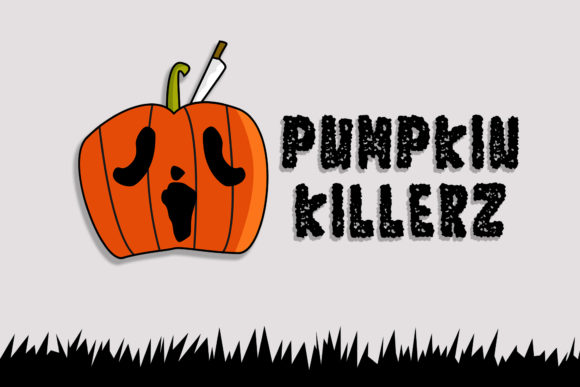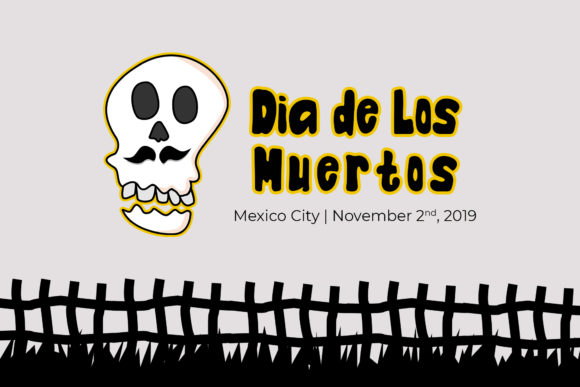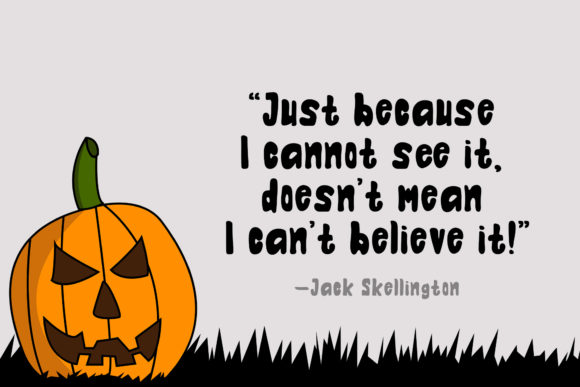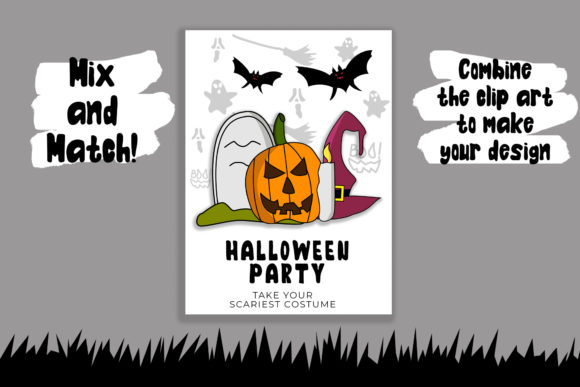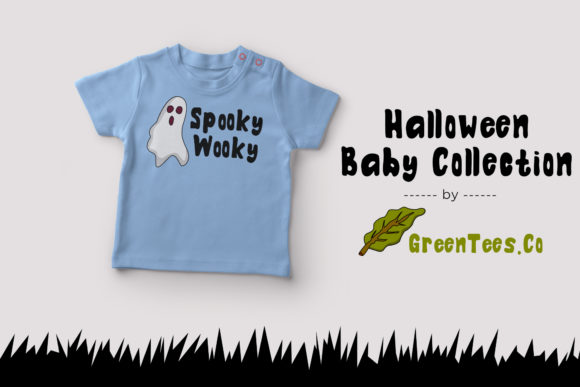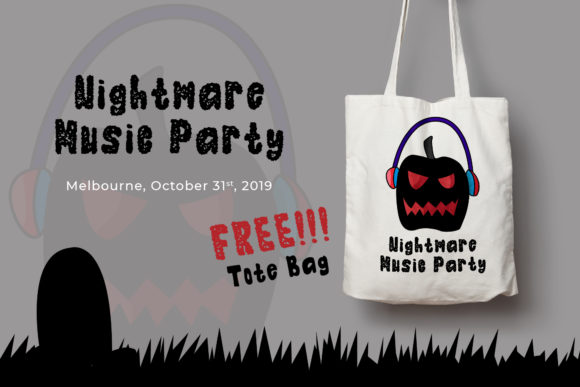
Introduction to Halloweendy Font
As a designer, you know the thrill of working on a creative project and wanting to make it stand out from the crowd. One of those moments came for me when I was brainstorming ideas for a Halloween-themed campaign. I wanted to create something that was both funny and spooky, but struggled to find the perfect font to match my vision.
That’s when I stumbled upon the Halloweendy Font, a playful display font that perfectly captured the essence of the season. With its unique and quirky design, it was love at first sight. But what truly sets Halloweendy Font apart is its high quality and versatility, making it a valuable resource for designers looking to add a touch of whimsy to their work.
Key Features of Halloweendy Font
- Unique and Spooky Design: Halloweendy Font is a high-quality, one-of-a-kind design resource ideal for creative projects that require a touch of Halloween magic.
- Perfect for Halloween Projects: With its spooky and playful design, Halloweendy Font is perfect for Halloween-themed projects, such as invitations, party decorations, and social media graphics.
Honest Review: Halloweendy Font
I recently had the opportunity to try out the Halloweendy Font, and I’m excited to share my honest review with you.
What works well: ✨ I was impressed by the high-quality design of the font, which features intricate details and a unique, spooky aesthetic. The transparent background is also a nice touch, making it easy to customize and integrate into creative projects.
The Halloweendy Font is a great design resource for anyone working on a Halloween-themed project or simply looking to add a touch of whimsy to their designs. It’s free to download, which is a definite plus.
What doesn’t work well: ⚠️ While the font is generally well-designed, I did notice some limitations in terms of its versatility. The font is quite specific in its style and may not be suitable for all types of projects. Additionally, the font’s size and weight options are limited, which may require some creative workarounds.
Overall, I’m impressed with the Halloweendy Font and would recommend it to designers working on creative projects. While it may have some limitations, its unique design and high-quality construction make it a valuable addition to any design library.
- Unique, spooky aesthetic
Tips for Getting the Most Out of Halloweendy Font
For the best results, use Halloweendy Font in conjunction with other Halloween-themed design elements. Experiment with different font sizes, colors, and styles to create a cohesive and creative design. Don’t be afraid to get creative and try out new things!
Halloweendy Font is perfect for designing Halloween party invitations, spooky social media posts, and creative graphics for your favorite Halloween-themed projects. Its high-quality design and transparent background make it a versatile and useful design resource.